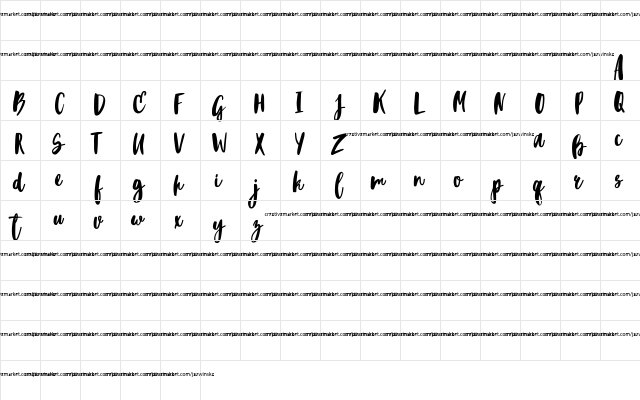
Blacktear Script Regular
| Foundry | Katsia Jazwinska |
| Designer | Katsia Jazwinska |
Design Context for Blacktear Script Typeface
Blacktear Script brings a calligraphic fluidity to the page — its connecting strokes and expressive curves give it an unmistakably human quality.
Font Pairing: Combine Blacktear Script with a simple geometric sans for maximum contrast — the tension between flowing curves and clean structure is a classic typographic pairing.
Pro Tip: Pair Blacktear Script with a clean sans-serif for supporting text. The contrast between fluid script and geometric structure creates an elegant typographic hierarchy.